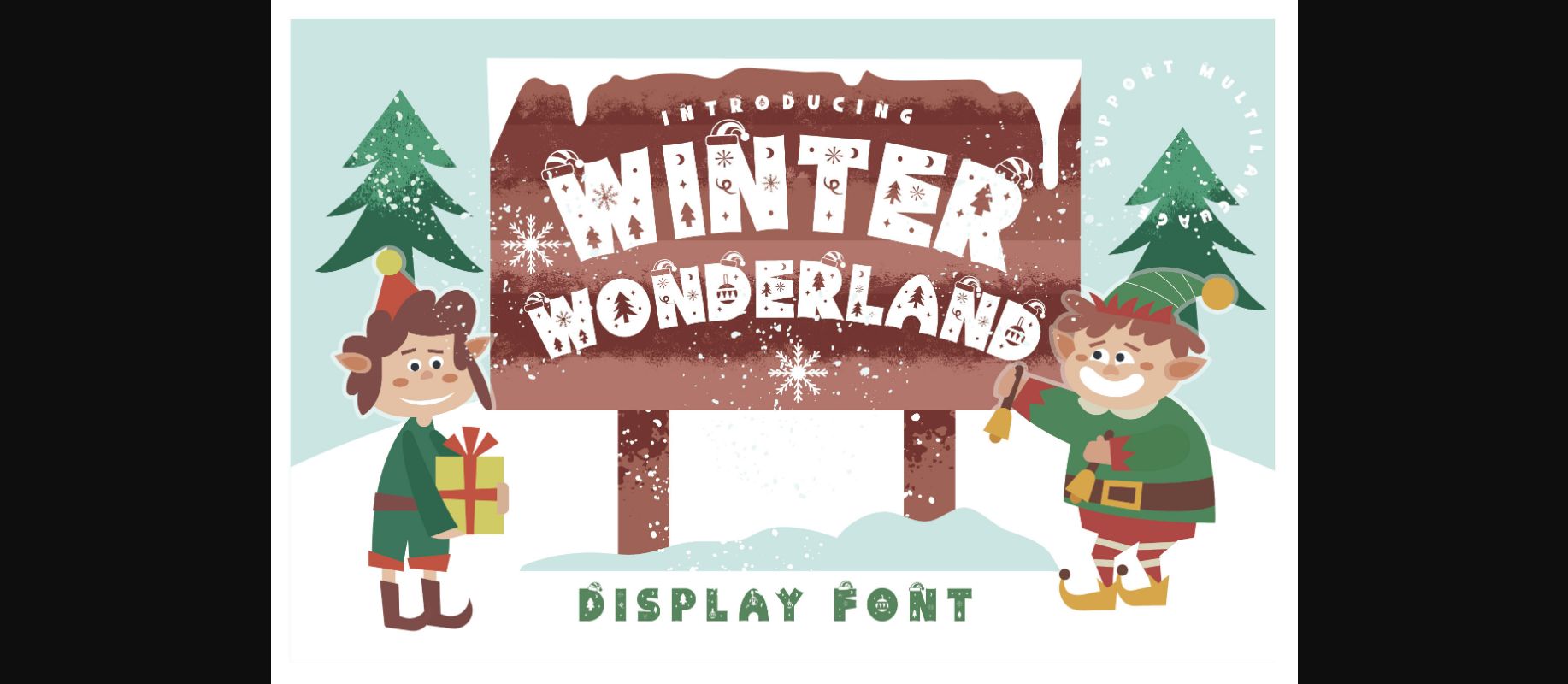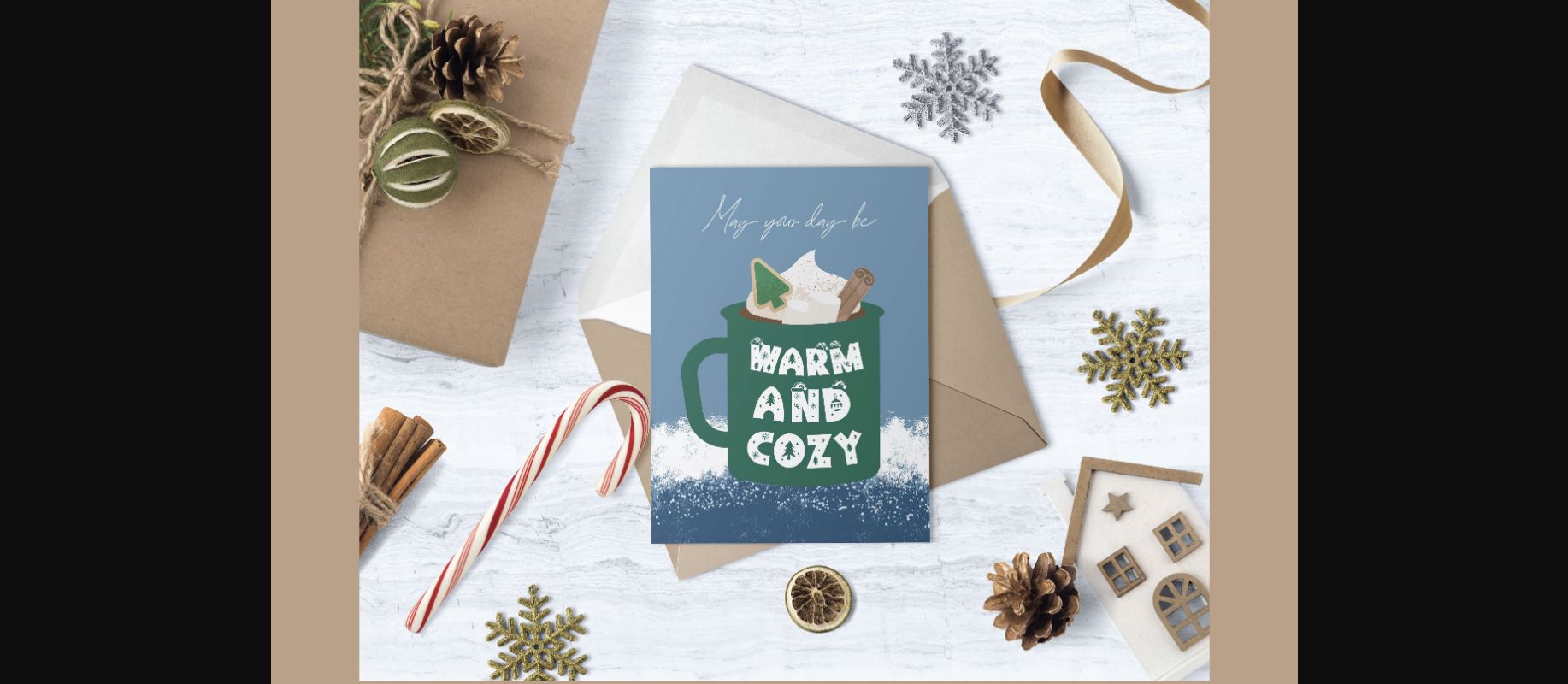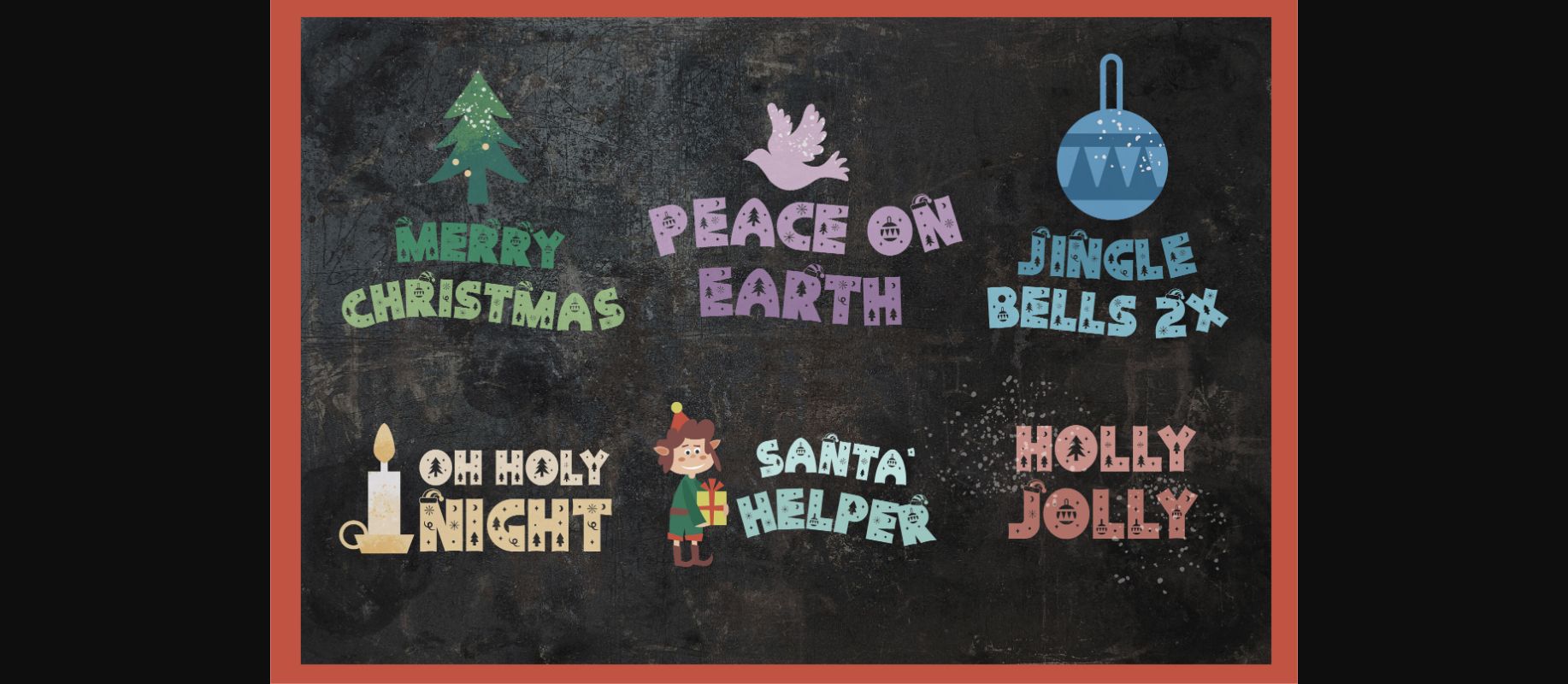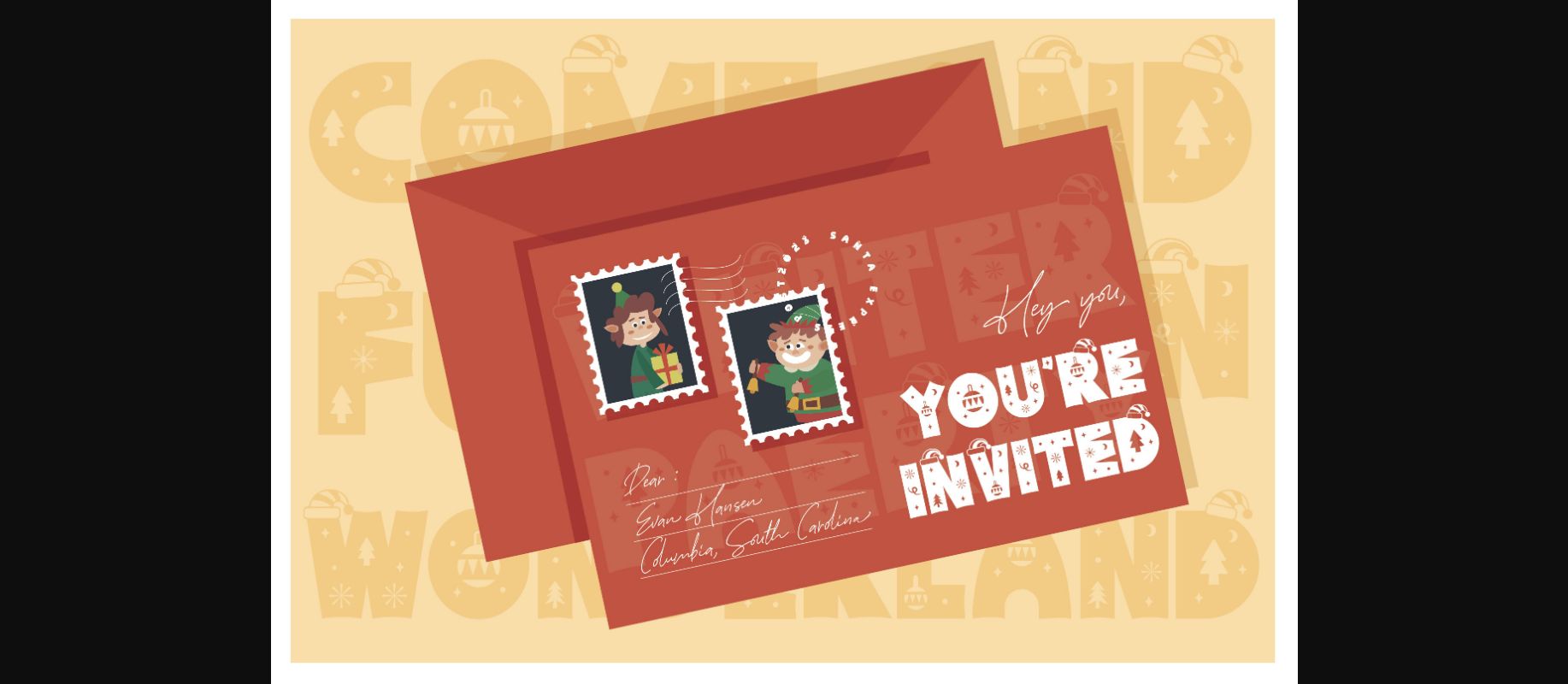
Winter Wonderland Font
About Winter Wonderland Font
Winter Wonderland is a display font in a Christmas theme. It is suitable for Christmas or winter design. If you are looking for a decorative and fun font, Winter Wonderland is the right option! Grab it now and make your next Christmas design in wonder!